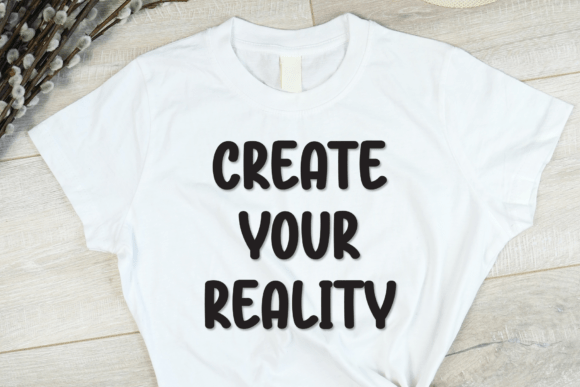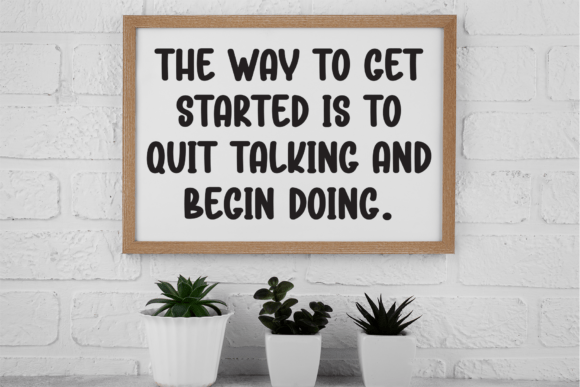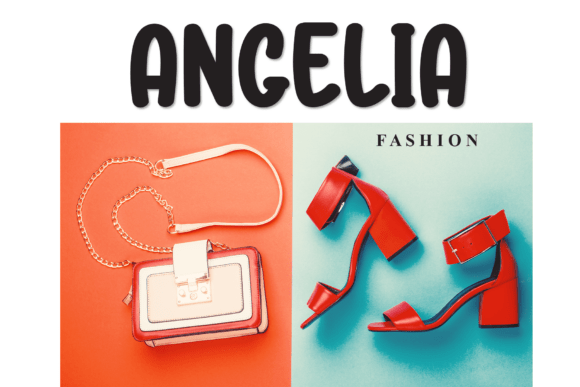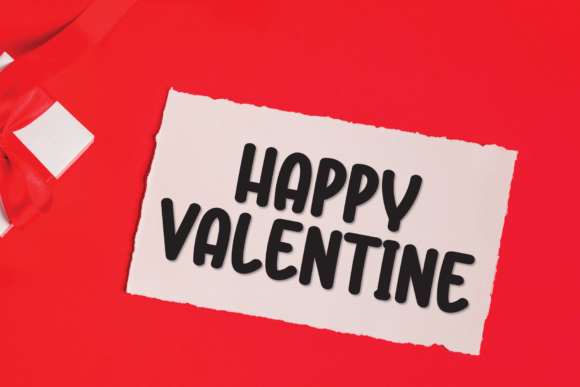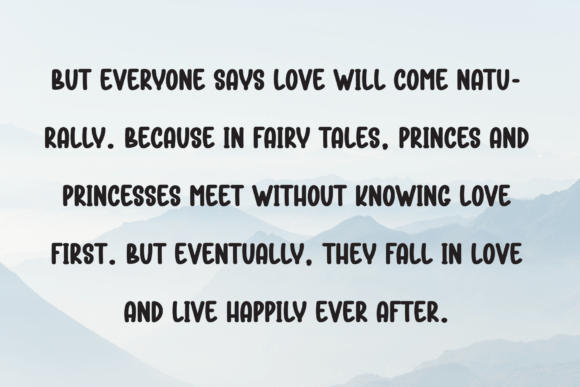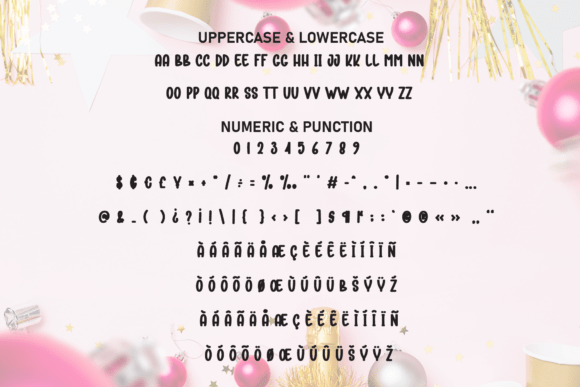
Happy New Year Font: Elevate Your Designs with Our Special Creative Products
As the clock strikes midnight on New Year’s Eve, the world welcomes a fresh start, and with it, a chance to refresh and revitalize our creative projects. If you’re a designer, crafter, or DIY enthusiast looking to add a touch of elegance and sophistication to your work, you’re in luck! Our Happy New Year Font is here to take your designs to the next level, offering a unique and extraordinary experience that will leave a lasting impression.
What Sets Our Font Apart
Our Happy New Year Font is not just any ordinary font. It’s a carefully crafted, special creative product designed to meet the needs of modern designers and crafters. With its latest style letters, this font is perfect for a wide range of applications, including:
- Wall displays
- Wedding invitations
- Social media post logos
- Advertisements
- Product packaging
- Product designs
- Labels
- Photography
- Watermarks
- Invitations
- Stationery
- Any project that requires tasteful handwriting
Unlock Endless Design Possibilities
With our Happy New Year Font, the design possibilities are endless. Imagine being able to create stunning visual content that captures the essence of the new year, with elegant and refined typography that elevates your brand or personal style. Whether you’re working on a commercial project or a personal DIY endeavor, this font will help you:
- Stand out from the crowd with unique and eye-catching designs
- Convey a sense of sophistication and luxury
- Add a touch of personality to your work
- Enhance your brand’s visual identity
Get Ready to Experience the Best
Enjoy the freedom to create, experiment, and push the boundaries of your imagination. With our Happy New Year Font, you’ll be able to add a touch of magic to your work, making it truly unforgettable.